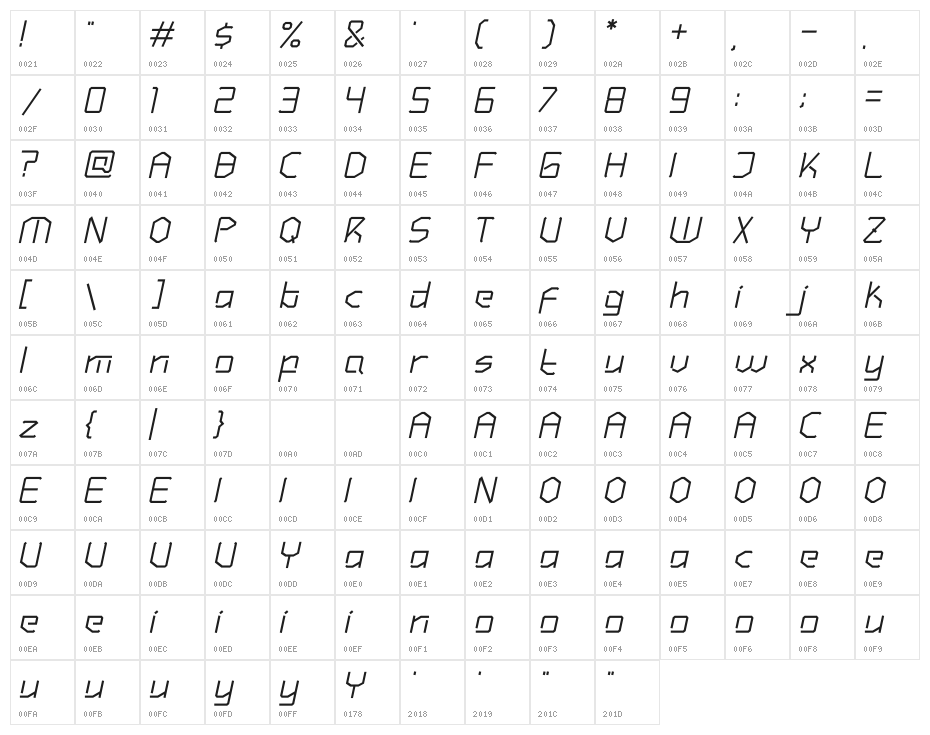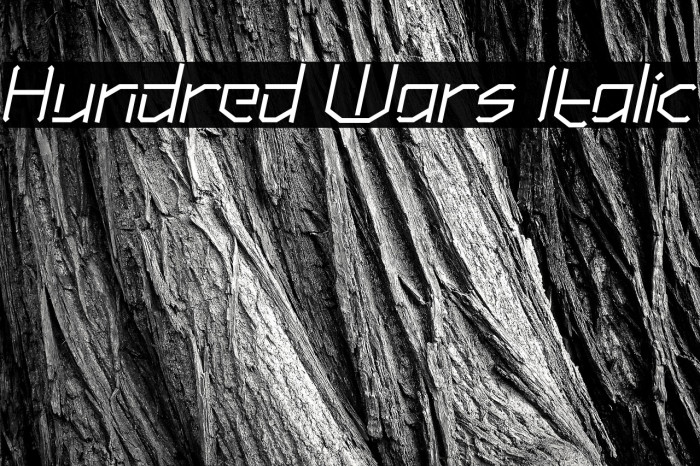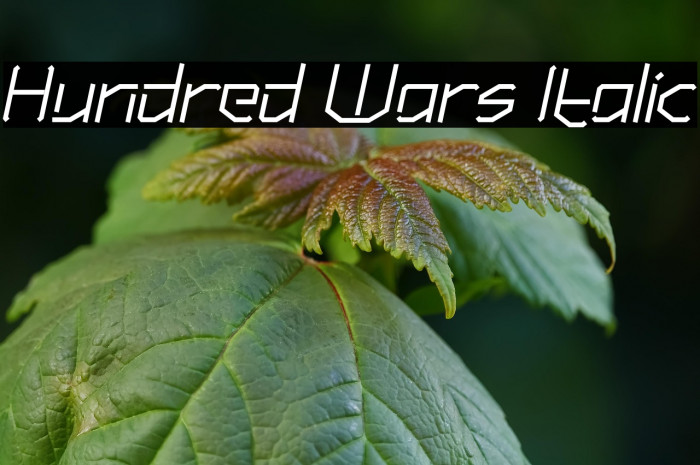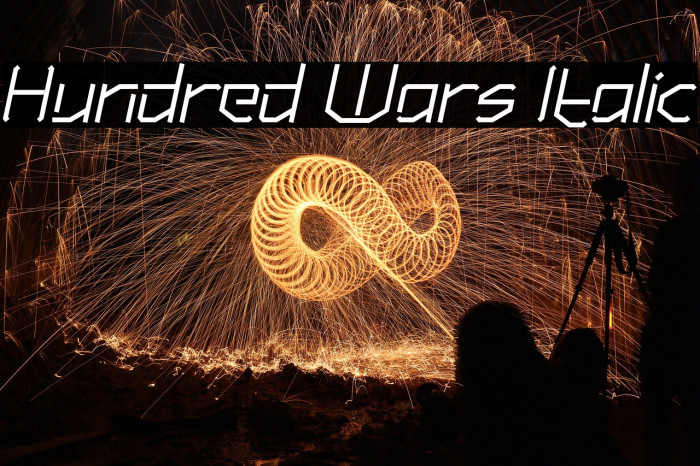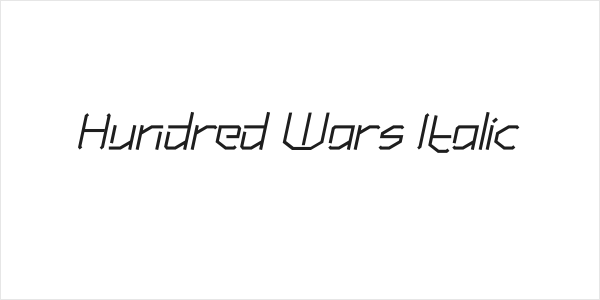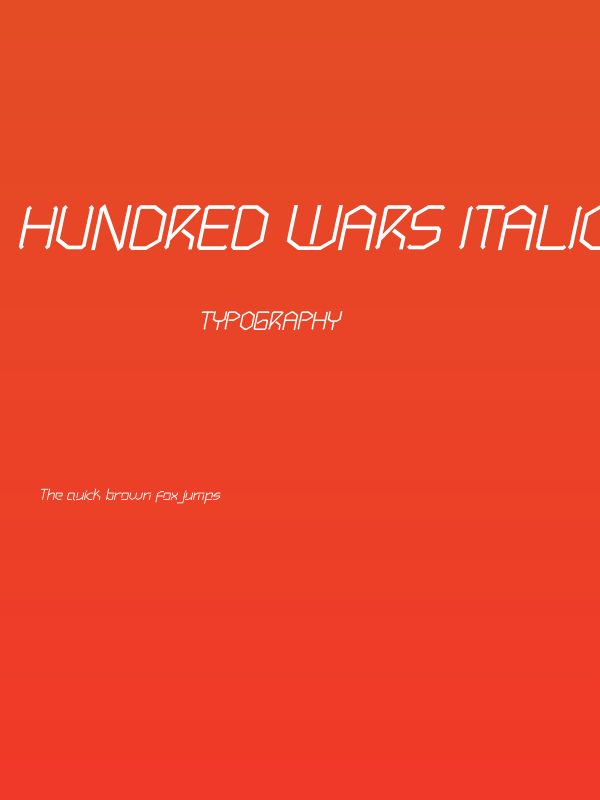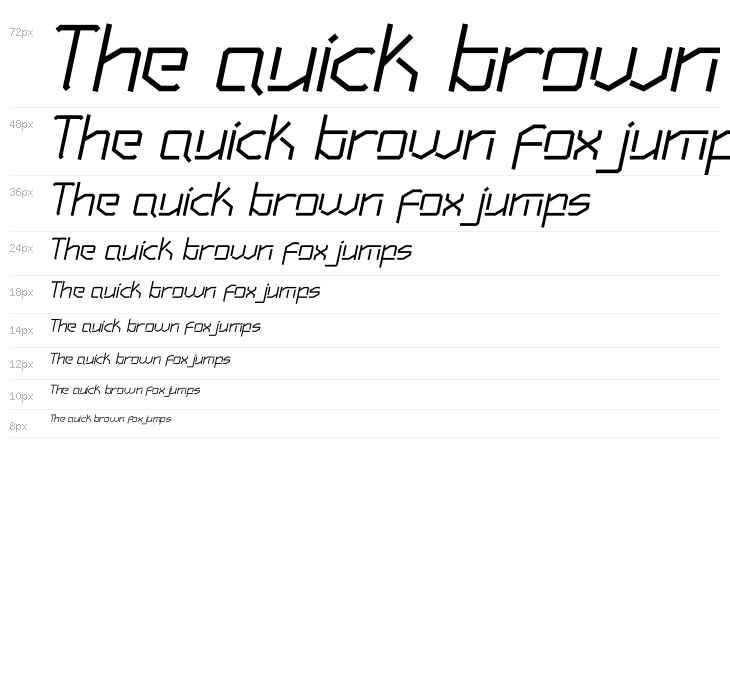
Hundred Wars Italic Font
Hundred Wars Italic Description
This font features a modern, angular design with a distinct italic slant, giving it a dynamic and futuristic appearance. The characters are constructed with sharp edges and straight lines, creating a geometric feel. The uppercase and lowercase letters maintain a consistent style, with the lowercase letters slightly more condensed. Numbers and special characters follow the same angular theme, ensuring uniformity across all glyphs. The overall look is sleek and contemporary, making it suitable for projects that require a bold and innovative touch.
| Proposed Projects | Ideal for tech-related branding, video game titles, futuristic posters, and innovative product packaging. |